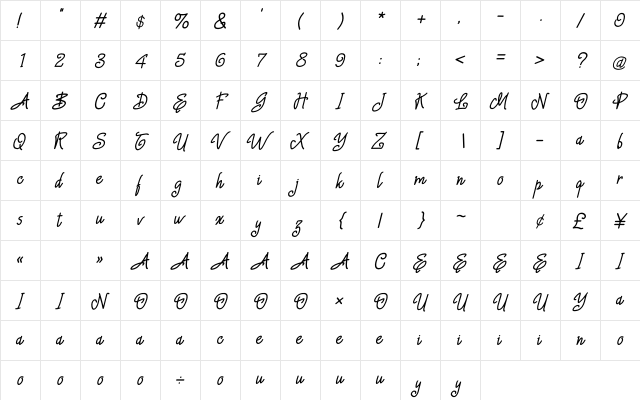
Baby Sophia Italic
Design Context for Baby Sophia Typeface
Baby Sophia takes a measured approach to typography — its balanced proportions and neutral character make it a reliable workhorse for both digital and print work. Its italic angle brings a sense of urgency and motion to the letterforms.
Pro Tip: Try Baby Sophia for annotation and caption copy alongside an upright companion — the contrast in angle creates a dynamic but ordered typographic system.